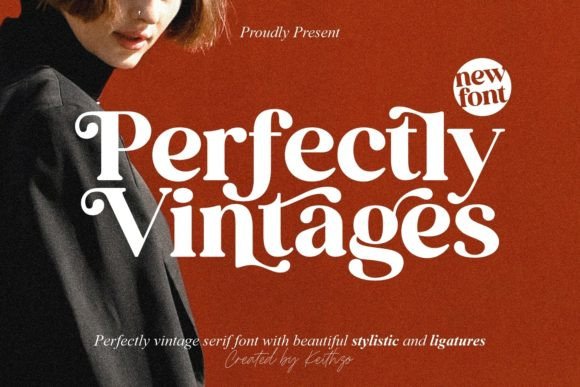
Looking for the perfect font to elevate your project's retro vibe? Look no further than Perfectly Vintages! This exquisite serif font, created by Keithzo (7NTypes), is the ideal choice for anyone seeking to infuse their designs with a touch of old-world charm.
With its bold, sturdy serifs and distinctive letterforms, Perfectly Vintages is the perfect choice for a wide range of design projects. Whether you're creating retro branding for a vintage-inspired product or designing nostalgic packaging for a classic brand, this font is sure to impress.
But what sets Perfectly Vintages apart from other serif fonts? For starters, its vintage-inspired design captures the essence of typography's golden age. And with its PUA encoding, accessing all glyphs and swashes has never been easier. Plus, it's the perfect font for poster Canva users, making it a must-have for anyone looking to create eye-catching graphics.